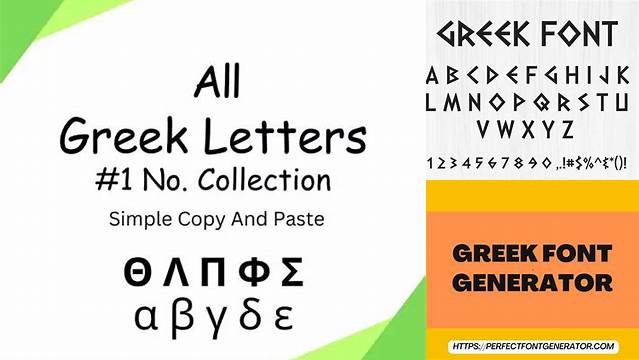
Greek Fonts: Copy And Paste Guide For Unique Text
Introduction: Diving into the World of Greek Fonts
Hey guys! Ever wondered how to spice up your text with those cool Greek characters? Whether you’re a student, a designer, or just someone who loves unique fonts, understanding how to copy and paste Greek fonts is super handy. In this guide, we’ll break down everything you need to know, from finding the best Greek fonts to using them in your projects. Let’s dive in!
Why Use Greek Fonts?
Greek fonts, my friends, aren't just for ancient history buffs! They add a touch of elegance and sophistication to any text. Imagine using them for a stylish logo, a captivating poster, or even a fun social media post. The distinct letterforms of the Greek alphabet can make your message stand out. Plus, learning to copy and paste Greek fonts opens up a world of creative possibilities. So, why settle for boring old Times New Roman when you can go Greek?
Understanding Greek Fonts
What Are Greek Fonts?
So, what exactly are Greek fonts? Well, they're fonts that include the characters from the Greek alphabet. This alphabet isn’t just used for modern Greek; it’s also the ancestor of many European alphabets, including our own! Using Greek fonts can give your text a classical, scholarly, or even mystical vibe. Think about it: those iconic letters have been around for centuries, used in everything from ancient texts to modern mathematics. Understanding the basics of Greek fonts will help you choose the right one for your project and ensure your message is conveyed perfectly.
History of Greek Fonts
The history of Greek fonts is as fascinating as the history of Greece itself! The Greek alphabet evolved from the Phoenician alphabet, and it's one of the oldest alphabets still in use today. Over time, Greek writing has gone through various transformations, from early inscriptions on pottery to the elegant scripts used in Byzantine manuscripts. Each era has left its mark on the way Greek letters are shaped, resulting in a rich variety of font styles. Knowing this history can add a deeper layer of appreciation to your choice of font, giving your work a sense of historical context and gravitas. Plus, it's a great conversation starter at parties (if you're into that kind of thing!).
Types of Greek Fonts
Now, let’s talk types! Greek fonts come in all shapes and sizes, just like any other font family. There are serif fonts, which have those little “feet” or strokes at the ends of the letters (think Times New Roman, but Greek!). Then there are sans-serif fonts, which have a cleaner, more modern look. You’ll also find decorative Greek fonts that are perfect for headings or special occasions. Each type of font has its own personality, so choosing the right one depends on the message you want to convey. A formal document might call for a classic serif font, while a trendy poster might look great with a bold sans-serif option. The possibilities are endless!
Finding Greek Fonts
Online Resources for Greek Fonts
Finding Greek fonts online is like searching for hidden treasure – there are so many gems out there! Numerous websites offer free and premium Greek fonts. Sites like Google Fonts, Font Squirrel, and DaFont are excellent starting points. These platforms have a wide selection, from traditional Greek scripts to modern interpretations. Just be sure to check the licensing terms before you use a font in your project. Some fonts are free for personal use but require a license for commercial purposes. A little research can save you a lot of trouble down the road. So, happy font hunting!
Free Greek Fonts
Who doesn’t love free stuff? Luckily, there are tons of free Greek fonts available online. Google Fonts is a fantastic resource for high-quality, open-source fonts that you can use in any project, commercial or personal. Font Squirrel is another great option, offering a curated selection of free fonts with clear licensing information. DaFont also has a vast collection, but it’s always a good idea to double-check the license before using a font from there. Remember, free doesn’t mean low quality. Many talented designers generously share their work, so you can find some real gems without spending a dime.
Premium Greek Fonts
If you’re looking for something extra special, premium Greek fonts might be worth the investment. Sites like MyFonts, Adobe Fonts, and Creative Market offer a wide range of professionally designed fonts that come with commercial licenses. Premium fonts often have more refined designs, additional weights and styles, and better support for different languages. If you're working on a high-profile project or need a font that truly stands out, splurging on a premium option can make a big difference. Think of it as an investment in your creative toolkit!
Copying Greek Fonts
How to Copy Greek Letters
Okay, let's get practical! How do you actually copy Greek letters? There are a few methods, and the easiest one depends on your operating system and what you're trying to do. One common method is using a character map. Windows and macOS both have built-in character map applications that allow you to browse and copy special characters, including Greek letters. Another option is to use an online Greek keyboard. These virtual keyboards let you type Greek letters directly, which you can then copy and paste. We'll dive deeper into these methods in the following sections, so stay tuned!
Using Character Map (Windows)
If you're a Windows user, the Character Map is your secret weapon for copying Greek letters. To find it, just type “Character Map” in the Windows search bar and hit enter. The Character Map displays all the characters available in your installed fonts. To copy a Greek letter, select the font you want to use, find the letter in the grid, click “Select,” and then click “Copy.” Now you can paste the Greek letter into your document or application. It might seem a little clunky at first, but once you get the hang of it, it’s a quick and easy way to access special characters.
Using Character Viewer (macOS)
Mac users, don't feel left out! macOS has its own version of the Character Map called Character Viewer. You can access it by going to System Preferences > Keyboard > Input Sources and checking the box next to “Show Input menu in menu bar.” Once enabled, you’ll see a little flag icon in your menu bar. Click it and select “Show Character Viewer.” From there, you can browse Greek letters, add them to your favorites, and copy them just like in Windows. The Character Viewer is a handy tool for anyone who frequently needs to use special characters, and it's a must-know for working with Greek fonts on a Mac.
Online Greek Keyboard
For those who prefer typing, an online Greek keyboard is a fantastic option. Numerous websites offer virtual Greek keyboards that allow you to type Greek letters using your regular keyboard. These keyboards usually have a layout that corresponds to the standard Greek keyboard layout, so you can type Greek letters by pressing the corresponding keys on your physical keyboard. Once you’ve typed the Greek letters you need, you can simply copy and paste them into your document. This method is especially useful if you need to type longer passages of Greek text.
Pasting Greek Fonts
How to Paste Greek Letters
So, you’ve copied your Greek letters – great! Now, let’s talk about pasting Greek letters correctly. Pasting Greek letters is generally the same as pasting any other text, but there are a few things to keep in mind. First, make sure the application you're pasting into supports the font you're using. If the font isn't supported, you might see squares or other placeholder characters instead of Greek letters. Another thing to consider is the formatting. Sometimes, pasted text can inherit the formatting of the source, which might not be what you want. We’ll cover how to deal with formatting issues in the next section.
Pasting into Word Processors
Pasting Greek letters into word processors like Microsoft Word or Google Docs is usually straightforward. Simply use the “Paste” command (Ctrl+V on Windows, Cmd+V on Mac) or the “Paste Special” option to control the formatting. If you’re having trouble with formatting, try pasting the text as “Unformatted Text” or “Plain Text.” This will remove any formatting from the source, allowing you to format the text as you like within your document. Word processors are generally pretty good at handling different fonts, but it’s always a good idea to double-check that your Greek letters are displaying correctly.
Pasting into Design Software
Pasting Greek letters into design software like Adobe Photoshop or Illustrator can be a bit trickier. These programs are more sensitive to font compatibility and formatting. When pasting Greek letters, make sure the font you’re using is installed on your system and supported by the software. If you’re still having issues, try pasting the text as a vector graphic or outline. This will convert the text into shapes, which can be easier to work with in design software. Remember to save your work frequently, especially when dealing with complex fonts and graphics!
Troubleshooting Pasting Issues
Sometimes, things don’t go as planned. If you’re encountering troubleshooting pasting issues with Greek letters, don’t panic! The most common problem is font incompatibility. If you see squares or strange characters instead of Greek letters, it means the font you’re using isn’t supported by the application. Make sure the font is installed on your system and that the application supports it. Another issue can be formatting conflicts. Try pasting the text as unformatted text and then reformatting it within the application. If all else fails, restart the application or your computer – sometimes a fresh start is all you need!
Using Greek Fonts in Different Applications
Greek Fonts in Microsoft Word
Using Greek fonts in Microsoft Word is a popular choice for students, academics, and anyone who needs to incorporate Greek text into their documents. Word supports a wide range of fonts, including many Greek fonts. To use a Greek font, simply select it from the font menu and start typing. You can also use the Symbol dialog box to insert individual Greek letters. Word’s autocorrect feature can sometimes be helpful for typing Greek words, but it’s always a good idea to proofread carefully. With a little practice, you’ll be writing in Greek like a pro!
Greek Fonts in Adobe Photoshop
If you’re a designer, you’ll probably want to use Greek fonts in Adobe Photoshop. Photoshop handles fonts well, but there are a few things to keep in mind. Make sure the font you’re using is installed on your system and activated in Photoshop. When pasting Greek letters, try pasting them as text layers rather than rasterizing them. This will allow you to edit the text later without losing quality. If you’re having trouble with rendering, try increasing the anti-aliasing settings or using a different rendering mode. With the right settings, Greek fonts can add a touch of elegance to your Photoshop designs.
Greek Fonts in Adobe Illustrator
Similar to Photoshop, Greek fonts in Adobe Illustrator can add a unique flair to your vector graphics. Illustrator is particularly well-suited for working with fonts, as it treats text as vector objects. This means you can scale and manipulate Greek letters without losing sharpness. To use Greek fonts in Illustrator, make sure the font is installed and activated. You can also convert text to outlines, which allows you to edit the individual letterforms. This is a great way to create custom Greek-inspired designs. Just remember to keep a backup of your original text in case you need to make changes later!
Greek Fonts in Social Media
Want to stand out on social media? Using Greek fonts in social media posts can be a fun and creative way to grab attention. Many social media platforms support a limited range of fonts, but you can often use Unicode characters to simulate Greek letters. There are also online font generators that allow you to create stylized text that you can copy and paste into your posts. Just be mindful of readability – while Greek fonts can look cool, you want to make sure your message is still clear and easy to understand. A little bit of Greek can go a long way!
Font Compatibility
Checking Font Compatibility
One of the most crucial steps is checking font compatibility before you start using Greek fonts in your projects. Not all fonts are created equal, and some applications may not support certain fonts. The first thing to do is make sure the font is installed correctly on your system. If you’re still having trouble, check the font’s documentation or the website where you downloaded it for compatibility information. You can also try using a font management tool to ensure your fonts are properly activated and organized. A little bit of troubleshooting can save you a lot of headaches down the road.
Font Formats (TTF, OTF)
Understanding font formats like TTF (TrueType Font) and OTF (OpenType Font) is essential for ensuring compatibility. TTF is an older format that’s widely supported, while OTF is a more modern format that offers advanced features like ligatures and alternate characters. Both formats can support Greek letters, but OTF fonts often have better support for complex scripts and languages. When choosing a font, consider the format and whether it’s compatible with the applications you’ll be using. If you’re not sure, it’s always a good idea to test the font in your target application before committing to it.
Resolving Font Issues
Encountering resolving font issues is a common part of working with different fonts, including Greek fonts. If you’re having trouble with a font, the first step is to restart your computer. This can often resolve minor glitches. If that doesn’t work, try reinstalling the font. Make sure you’ve downloaded the font from a reputable source and that the installation process was successful. If you’re still having problems, check your application’s font settings or consult the application’s documentation. Sometimes, a simple update or a change in settings can fix font-related issues.
Tips for Using Greek Fonts
Best Practices for Font Usage
To make the most of best practices for font usage, think about how the font complements your overall design. A classic Greek serif font might be perfect for a formal document, while a modern sans-serif Greek font could add a stylish touch to a website or poster. Consider the font size, spacing, and color to ensure your text is readable and visually appealing. And remember, less is often more. Using too many different fonts can make your design look cluttered and unprofessional. Stick to a limited palette of fonts that work well together.
Pairing Greek Fonts with Other Fonts
Pairing Greek fonts with other fonts can be an art form! The goal is to create a harmonious and visually appealing combination. A good rule of thumb is to pair a Greek font with a complementary Latin font. For example, a classic Greek serif font might pair well with a traditional serif font like Times New Roman or Garamond. A modern Greek sans-serif font could look great with a clean sans-serif font like Helvetica or Arial. Experiment with different combinations to find what works best for your project. Online font pairing tools can also be helpful for finding inspiration.
Even experienced designers can make mistakes when working with fonts. One of the common mistakes to avoid is using too many fonts in a single design. This can create a cluttered and confusing look. Another mistake is choosing fonts that are difficult to read. Make sure your font is legible, especially in small sizes. Also, be mindful of licensing issues. Always check the licensing terms before using a font in a commercial project. Finally, don’t be afraid to experiment, but always prioritize readability and visual harmony.
Conclusion: Mastering Greek Fonts Copy and Paste
So, there you have it, guys! You’ve now got the lowdown on mastering Greek fonts copy and paste. From understanding the history and types of Greek fonts to finding them online and using them in different applications, you’re well-equipped to add a touch of Hellenic flair to your projects. Remember to check font compatibility, troubleshoot any issues, and follow best practices for font usage. With a little practice, you’ll be creating stunning designs with Greek fonts in no time. Happy creating!
Final Thoughts on Greek Fonts
Greek fonts are more than just a collection of characters; they’re a link to a rich history and culture. By learning to use final thoughts on Greek fonts effectively, you can add depth and meaning to your designs. Whether you’re working on a historical document, a modern website, or a social media post, Greek fonts can help you convey your message with style and sophistication. So, go ahead, explore the world of Greek fonts and let your creativity soar!
Further Resources for Greek Fonts
Want to learn more? There are tons of further resources for Greek fonts available online. Websites like Typography.com, I Love Typography, and Fonts in Use offer articles, tutorials, and inspiration for working with fonts of all kinds, including Greek fonts. You can also find helpful forums and communities where designers share tips and advice. And don’t forget to check out books and articles on typography and design. The more you learn, the better you’ll become at using fonts effectively. So, keep exploring and keep creating!